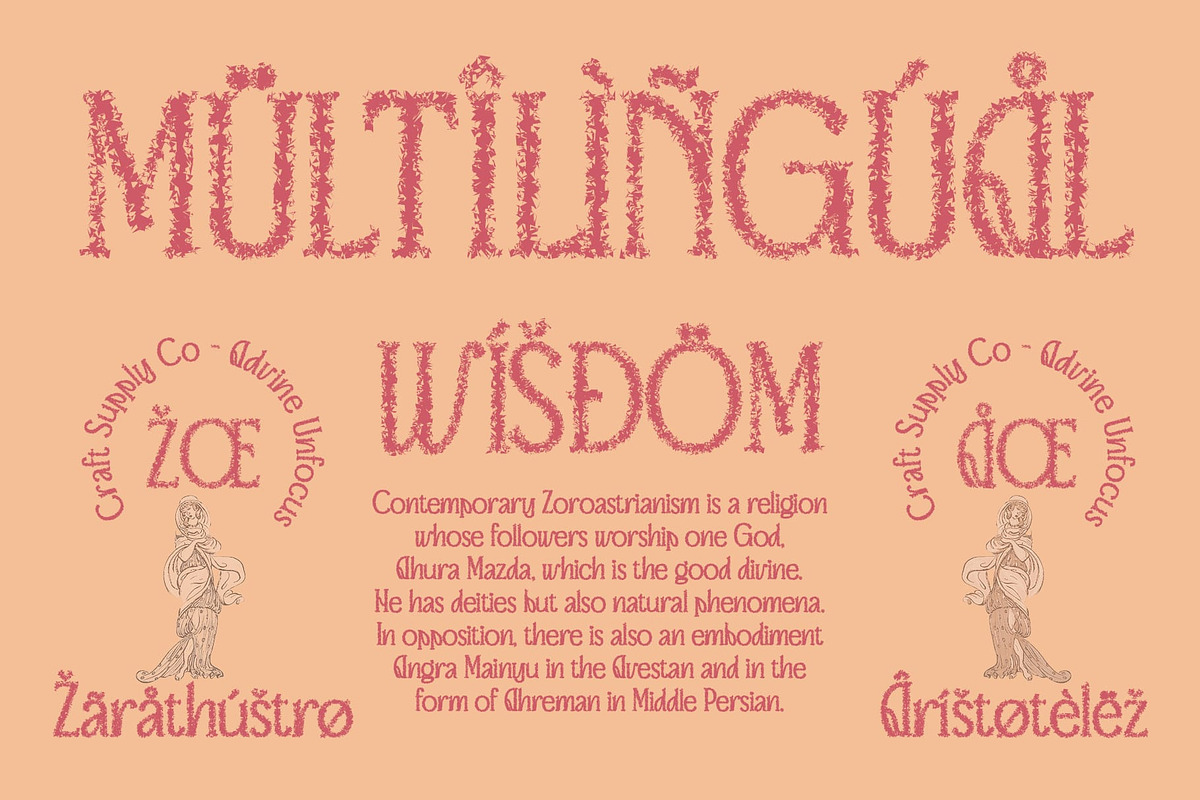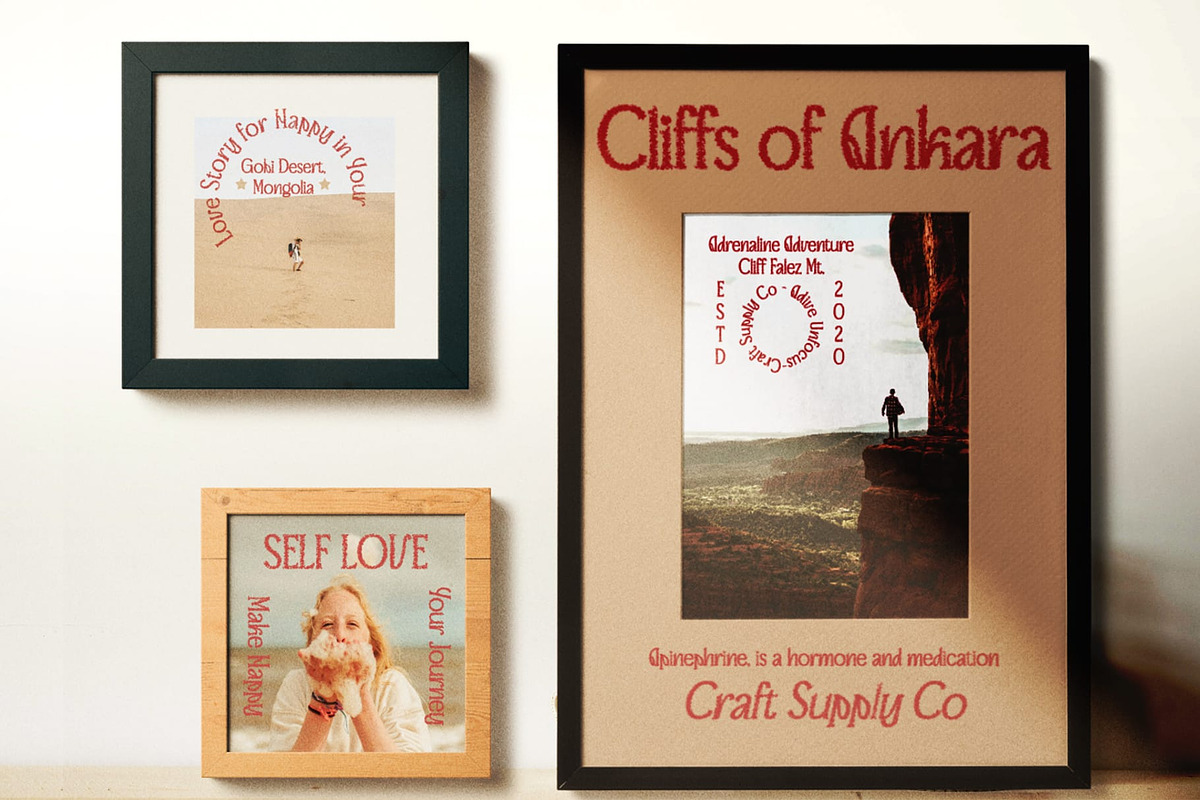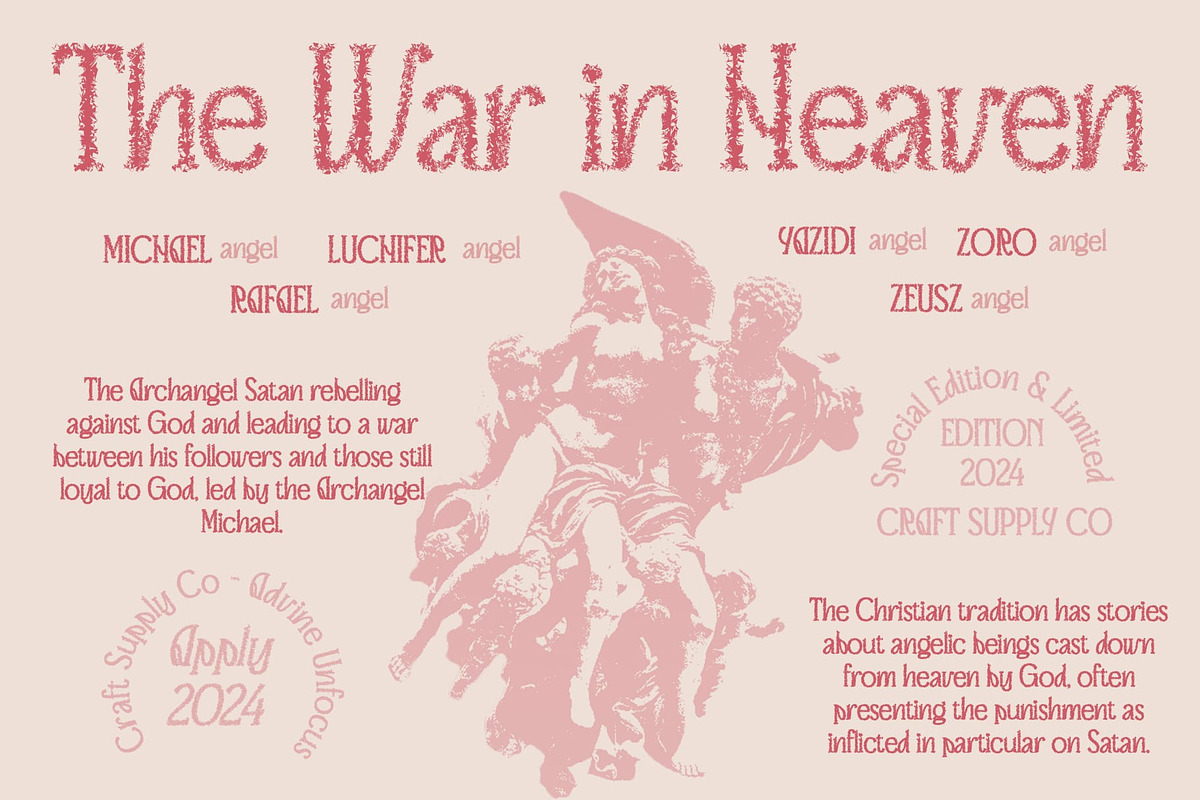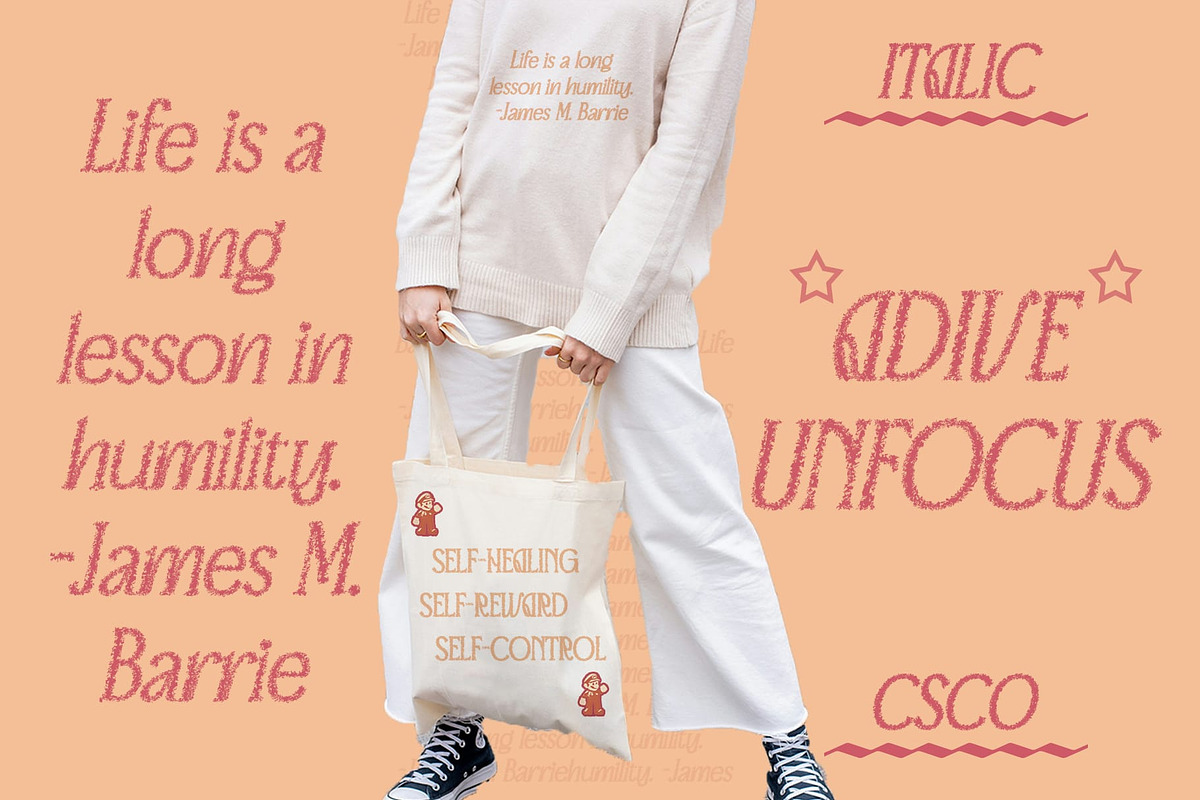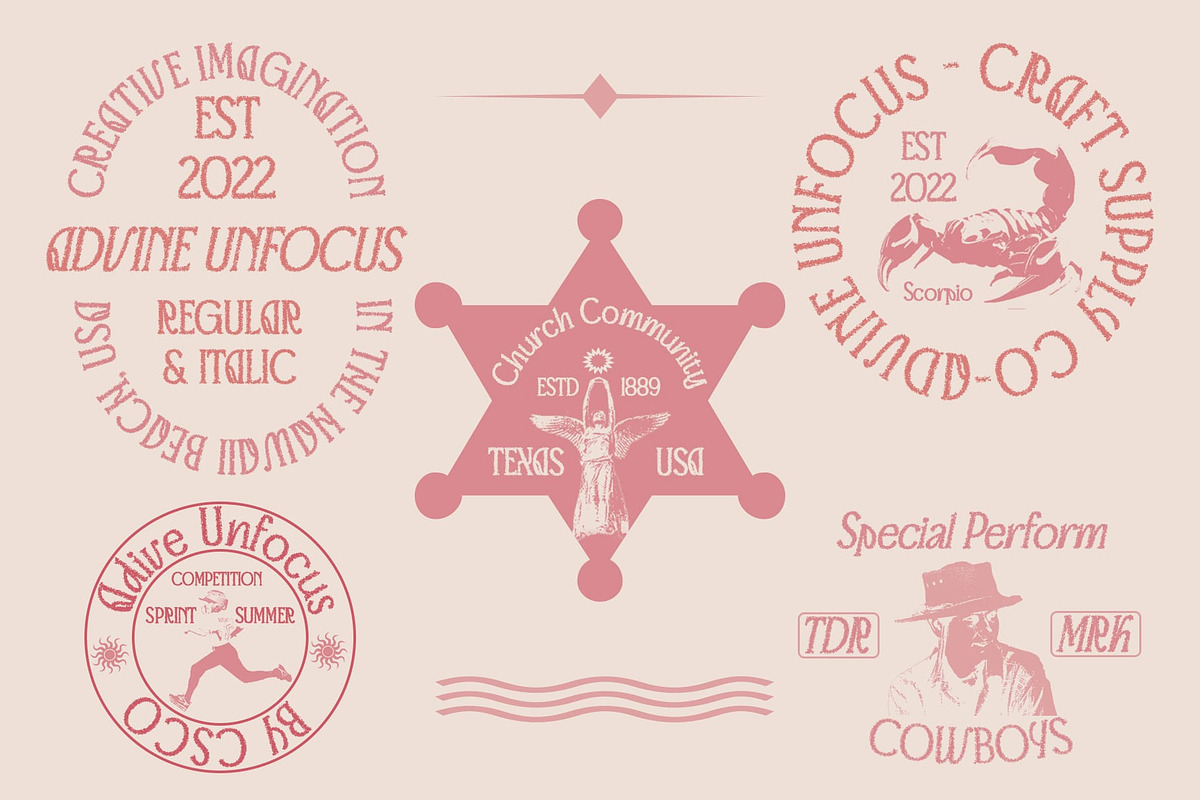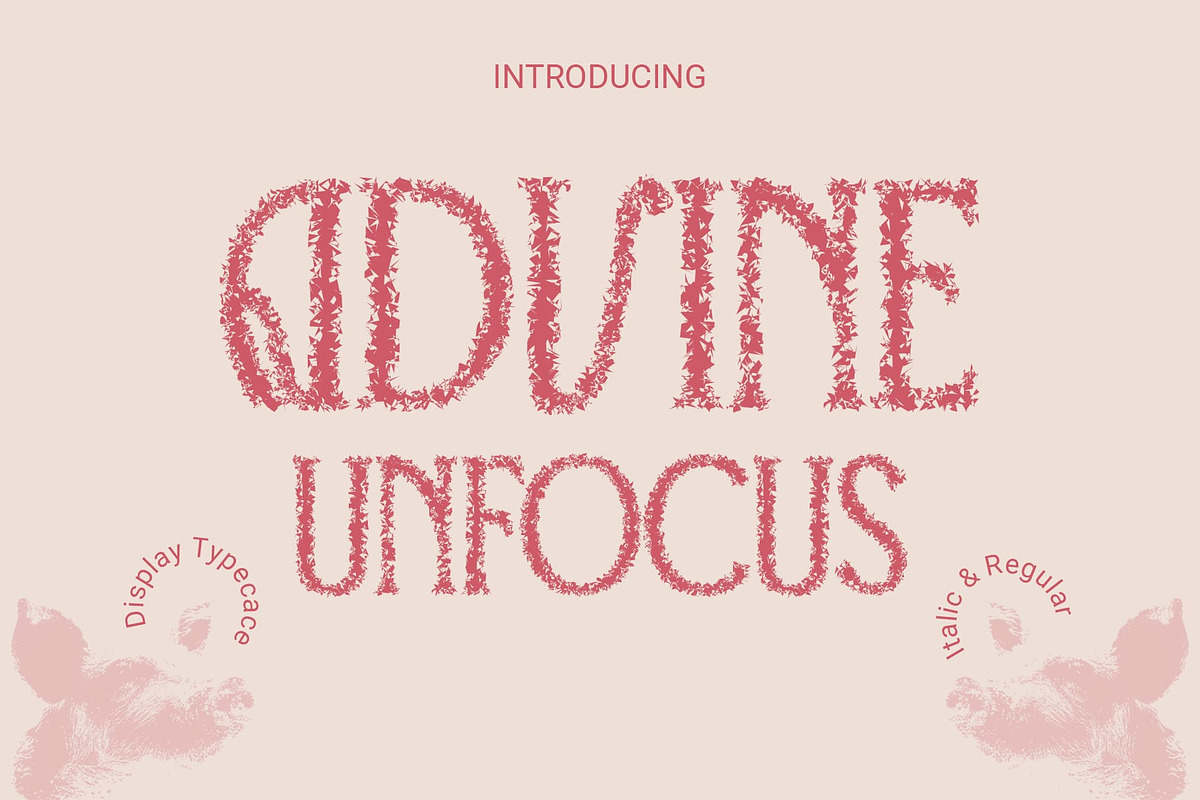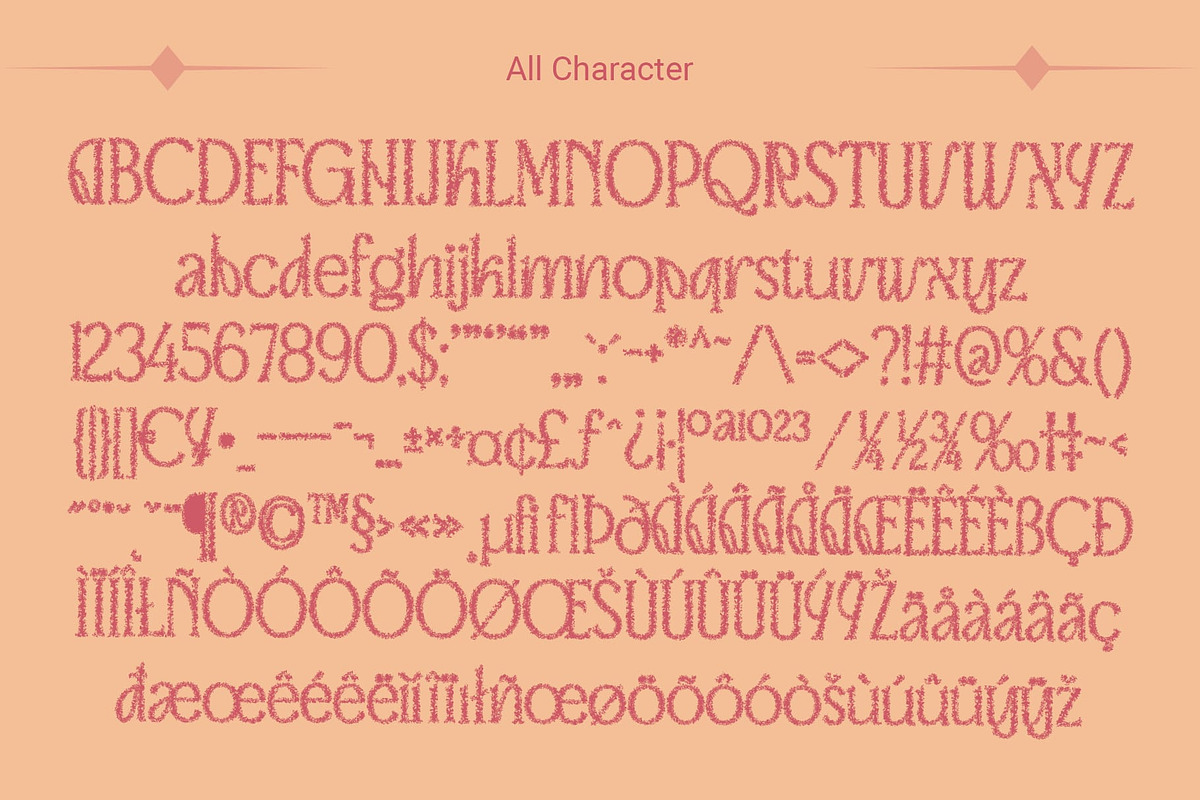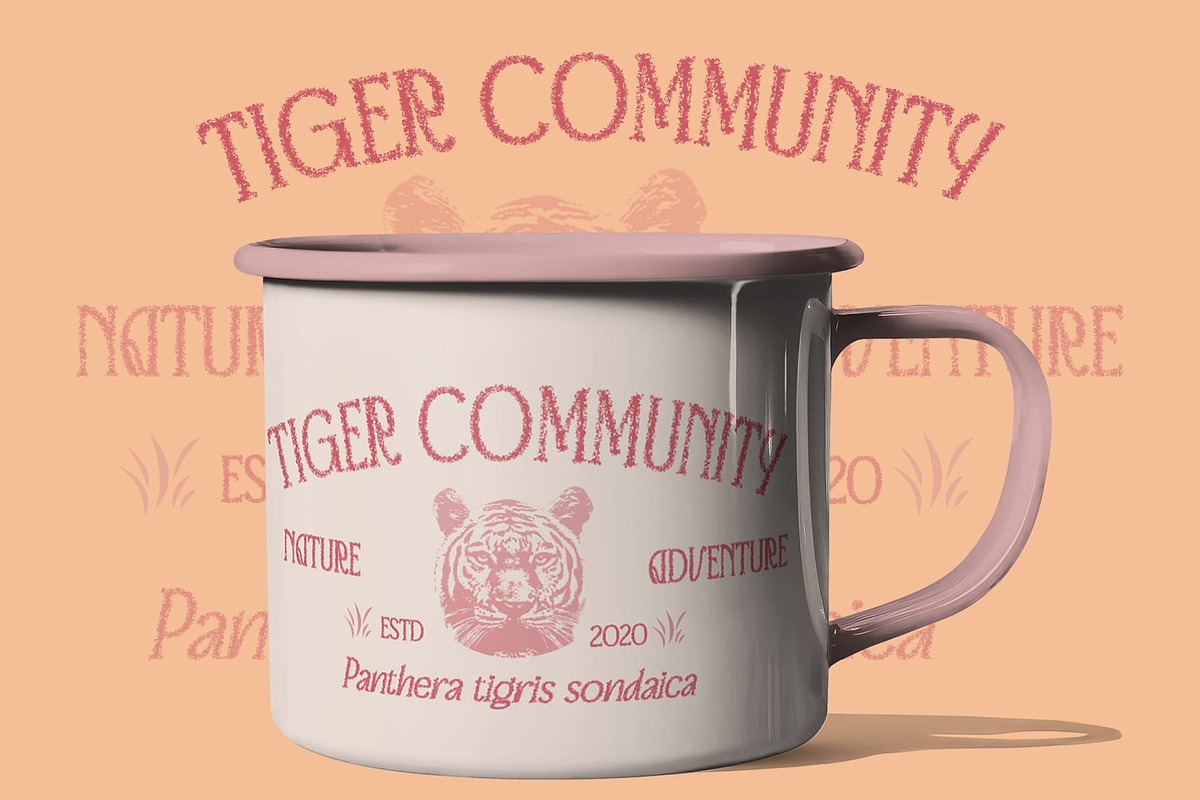
Advine Unfocus
Advine Unfocus: Retro-Inspired Display Font
Retro Aesthetics with Art Nouveau Flair Drawing inspiration from the Art Nouveau movement, Advine Unfocus exudes a retro charm with its intricate details and flowing lines. Its design pays homage to the elegance of the past.
Unfocus Effect for Vintage Vibes Featuring an unfocus effect, This font adds a hint of nostalgia and mystery to its appearance. The blurred edges evoke a sense of softness and dreaminess reminiscent of vintage photography.
Perfect for Eye-Catching Display Tailored for display purposes, This font is perfect for grabbing attention. Whether used in posters, album covers, or website headers, its retro-inspired style adds a unique touch to any design.
Versatile Application in Design Beyond its retro allure, This font offers versatility in design applications. Its distinctive aesthetic lends itself well to various projects, from branding to editorial layouts, adding character and charm.
Retro Revival This font emerges as a nostalgic nod to the past, with its retro-inspired design and unfocus effect. Ideal for eye-catching display purposes, it brings a touch of vintage elegance to contemporary design projects, capturing attention and sparking intrigue.